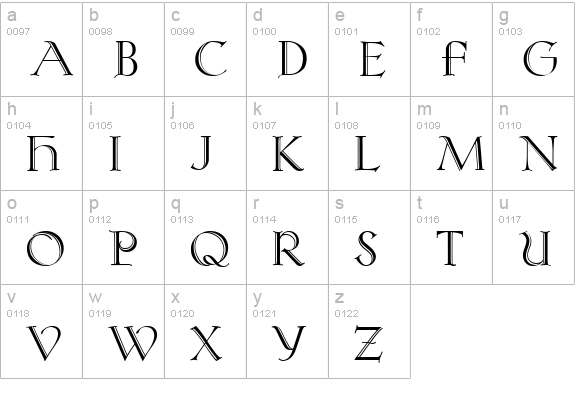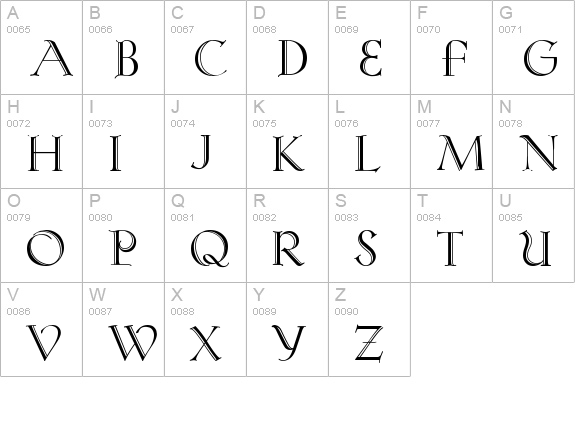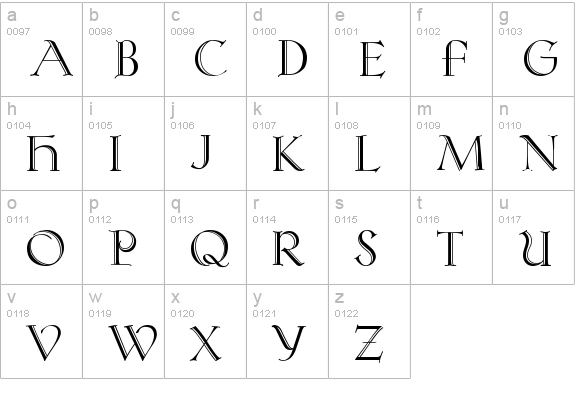
Koch Rivoli is a sophisticated and elegant font that exudes a sense of timeless beauty and refinement. With its sleek lines and graceful curves, this typeface is perfect for adding a touch of class to any design project. Whether you are creating invitations, branding materials, or editorial layouts, Koch Rivoli will elevate your work to new levels of sophistication. What sets Koch Rivoli apart is not only its stunning aesthetic appeal but also its versatility. This font is equally at home in both modern and traditional settings, making it a truly versatile choice for any designer. Its classic yet contemporary design ensures that it will stand the test of time and remain relevant for years to come. And the best part? Koch Rivoli is completely free to download at FontsMarket.com. Yes, you read that right - you can access this exquisite font without spending a dime. So why wait? Elevate your designs with Koch Rivoli today and see the difference it can make.